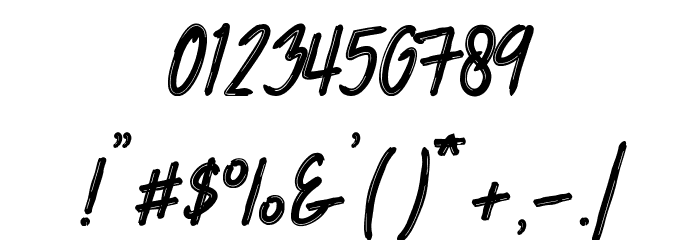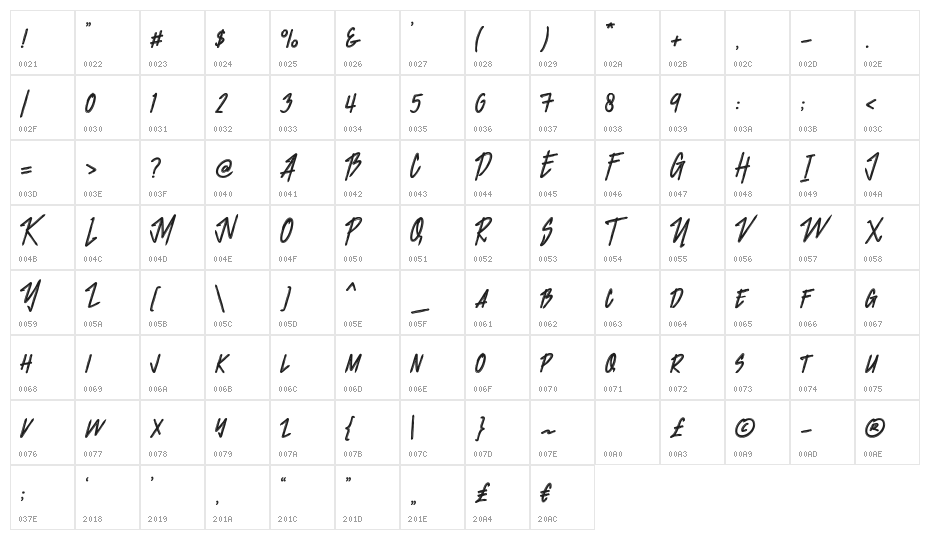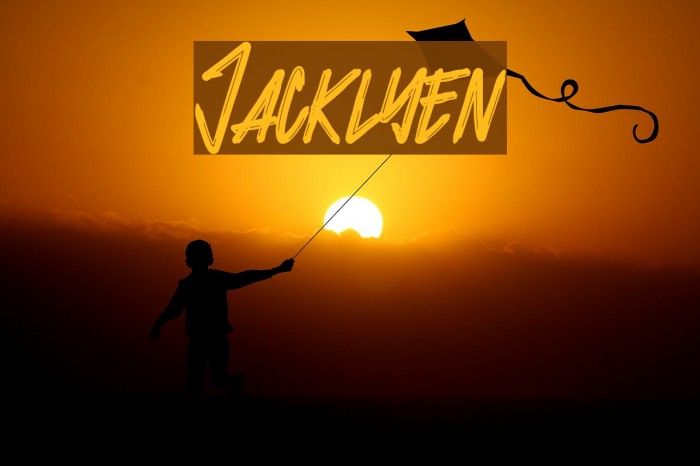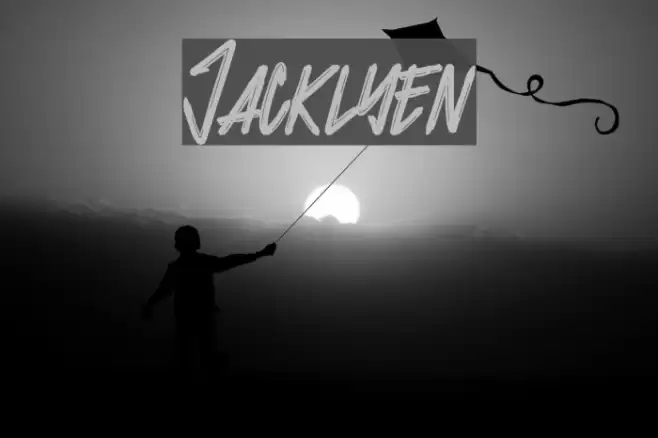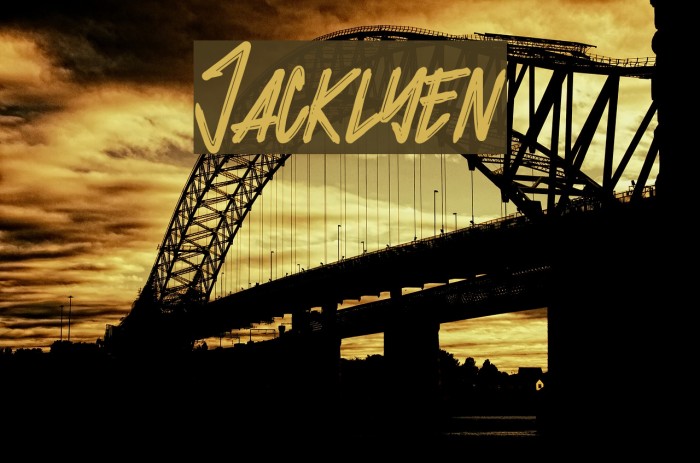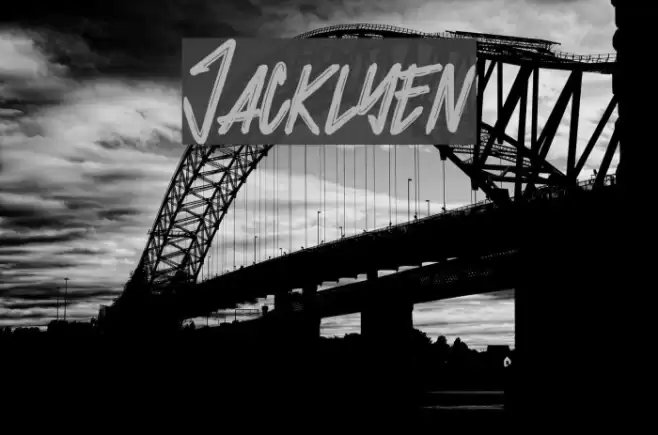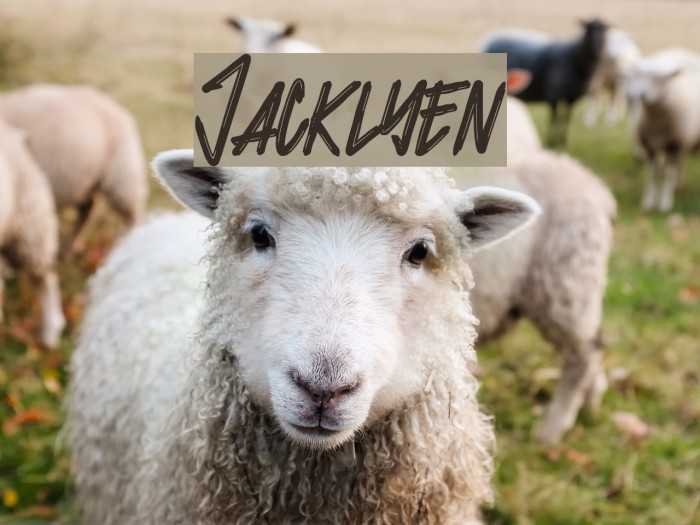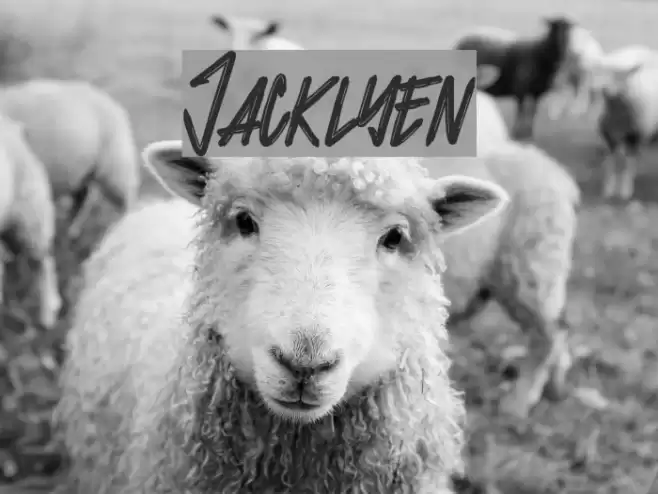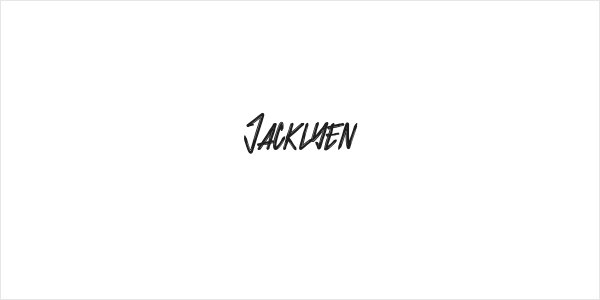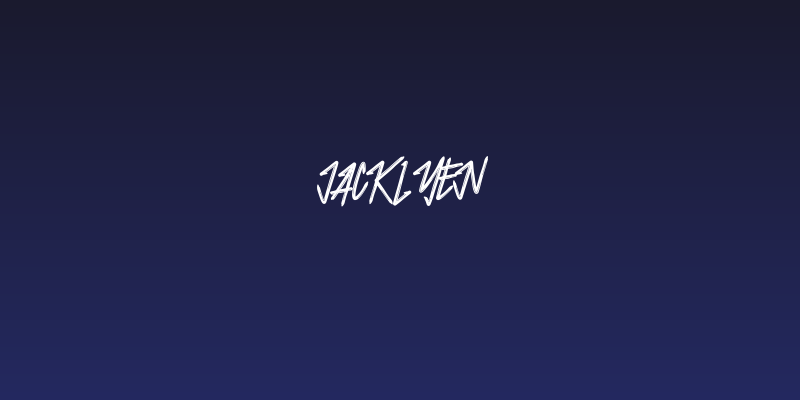
Jacklyen Font
Jacklyen Description
This font features a bold, energetic script style with a dynamic and flowing appearance. The characters are connected, giving it a handwritten feel, yet they maintain a sense of structure and readability. The strokes are thick and consistent, providing a strong visual impact. The uppercase letters are particularly striking, with exaggerated curves and angles that add to the font's lively character. The lowercase letters complement the uppercase with a slightly more restrained design, yet they still carry the same vibrant energy. Numbers and special characters are designed to match the overall aesthetic, ensuring a cohesive look across all text elements.
| Proposed Projects | Ideal for branding projects, logos, posters, and any design requiring a bold, expressive touch. |